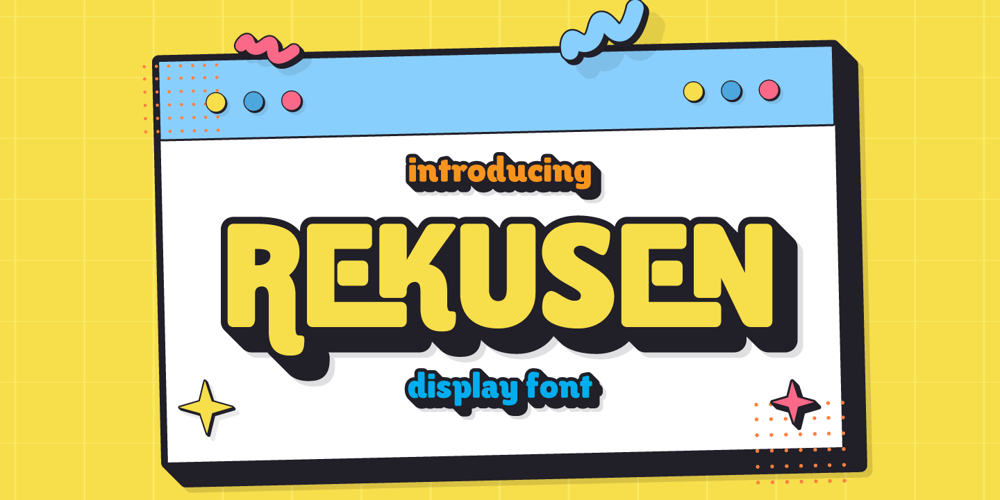
Rekusen
Rekusen font
Rekusen Font Family was designed by Lita Faolina and published by Product Type. Rekusen contains 1 styles and family package options. Rekusen is a modern and bold sans-serif display font that stands out with its cleanness. Perfect for branding, headlines, and editorial design, this font is sure to make a statement. The unique combination of thick and thin strokes creates a dynamic and eye-catching appearance that draws attention to your message.In addition to its stylish design, Rekusen also features a wide range of alternate characters and ligatures that allow for creative customization and increased versatility. With alternates and ligatures, this font provides endless possibilities for unique and impactful designs. And with support for multiple languages, it can be used across a variety of projects with ease.Whether you’re designing a logo, creating a poster, or crafting a website, Rekusen is a powerful tool that will help you achieve your design goals with style and sophistication. Its modern, clean, and versatile design makes it a perfect fit for any project that needs a touch of boldness and professionalism.What’s Included :- All glyphs Iso Latin 1- We highly recommend using a program that supports OpenType features and Glyphs panels like many Adobe apps and Corel Draw, so you can see and access all Glyph variations.- PUA Encoded Characters – Fully accessible without additional design software.- Fonts include Multilingual support